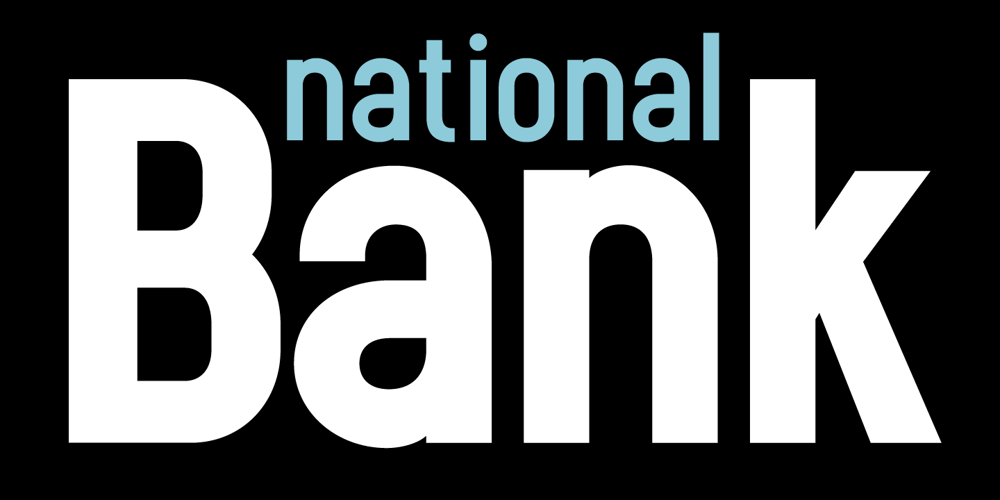
PF Eef Font Family was designed by Falko Grentrup and published by Parachute. PF Eef contains 3 styles and family package options. First conceived as the upper-and lowercase “e” for the logotype of independent publishers Elemental Editions, the letterforms were so well received that they were extended to an entire typeface and formed the basis for a bespoke font – Eef. The type design draws inspiration from the basic elements, the periodic table, functionalist vintage lettering and influences from other classic geometric typefaces with condensed cuts such as Futura and Trade Gothic. The extended set is now developed into a family consisting of three weights – Regular, Medium and Bold. While developing Eef it has been crucial to maintain the integrity of the geometrical shape in each glyph as much as possible, but also add subtle optical adjustments to make the forms more balanced and harmonic. Due to its detailed balance of simplicity, aesthetics and playfulness Eef works perfectly well in a corporate context as it does in editorial use or poster design. Eef feels most comfortable with text ranging from display to medium size.